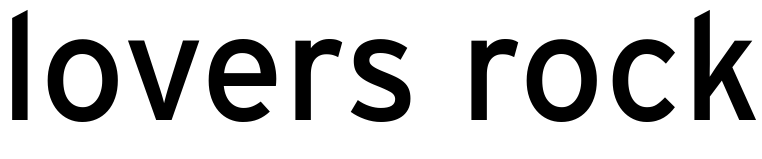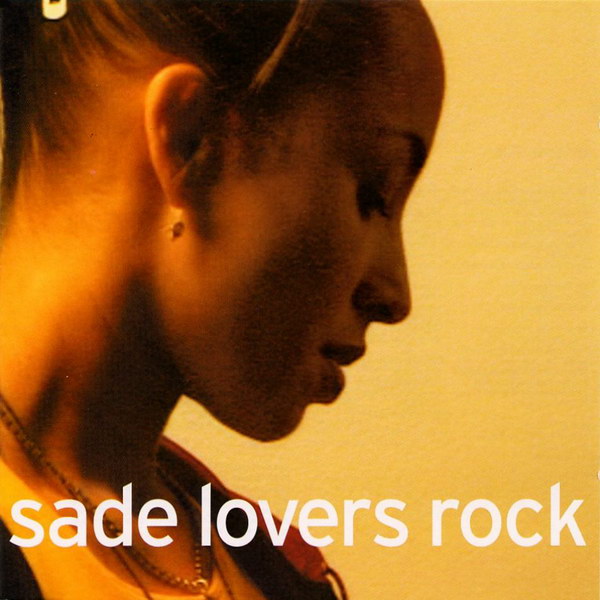
Lovers Rock Font
Fonts in UseLovers Rock is the fifth studio album by Sade, released in 2000. It features a blend of smooth soul, reggae, and jazz influences, with highlights including the title track and "By Your Side."
The cover features the Interstate Regular font, which was created by Tobias Frere-Jones in 1994 and is based on the U.S. Federal Highway Administration's signage alphabet. This commercial font can be viewed here.